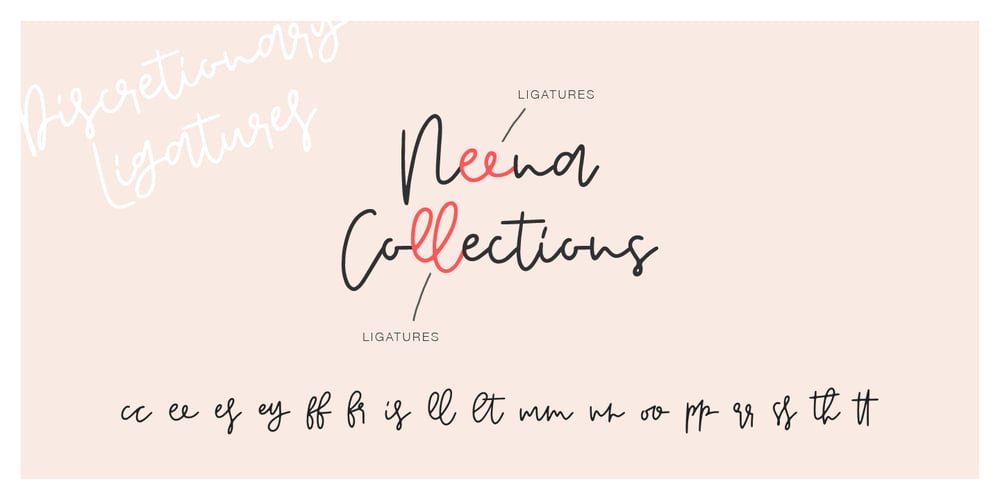
Hollens
Hollens font
Hollens Font Family was designed by Dmitrii Chirkov and published by Supfonts. Hollens contains 1 styles and family package options. This modern calligraphy script has been attentively written, with gentle curves to produce a font thats completely distinctive and original. It contains a full set of lower & uppercase letters, a large range of punctuation, numerals, and multilingual support. Perfect for adding a elegant and unique touch to your lettering projects and branding